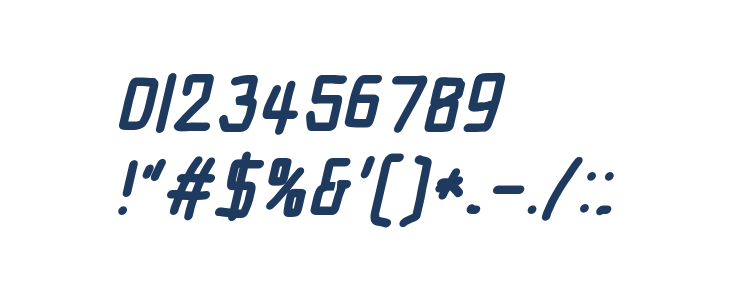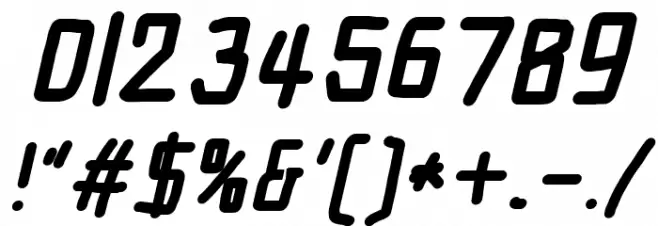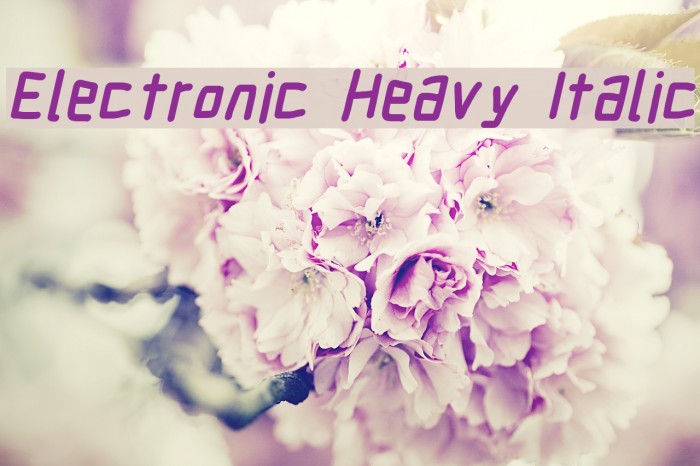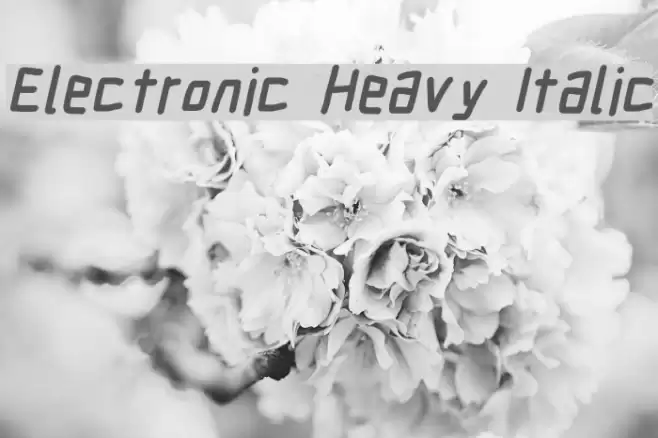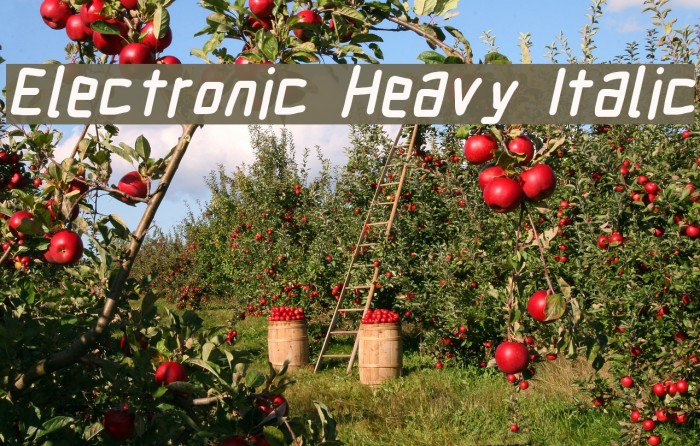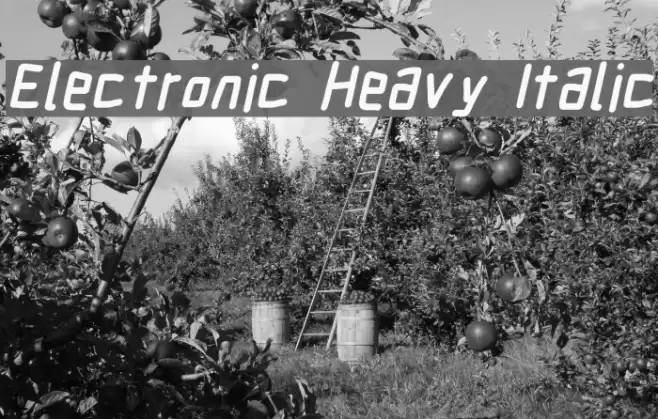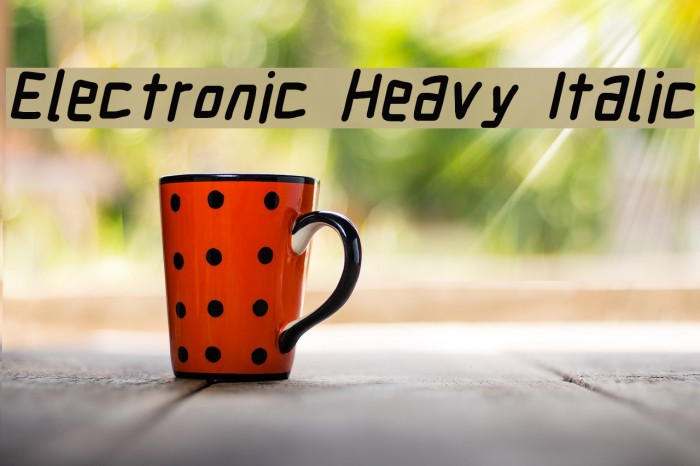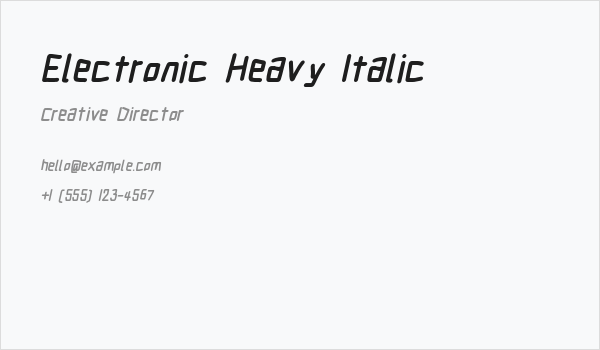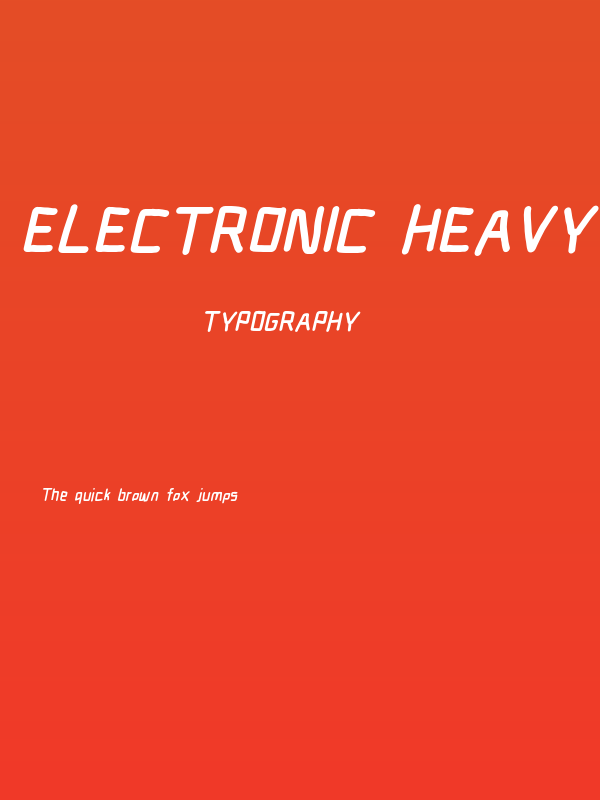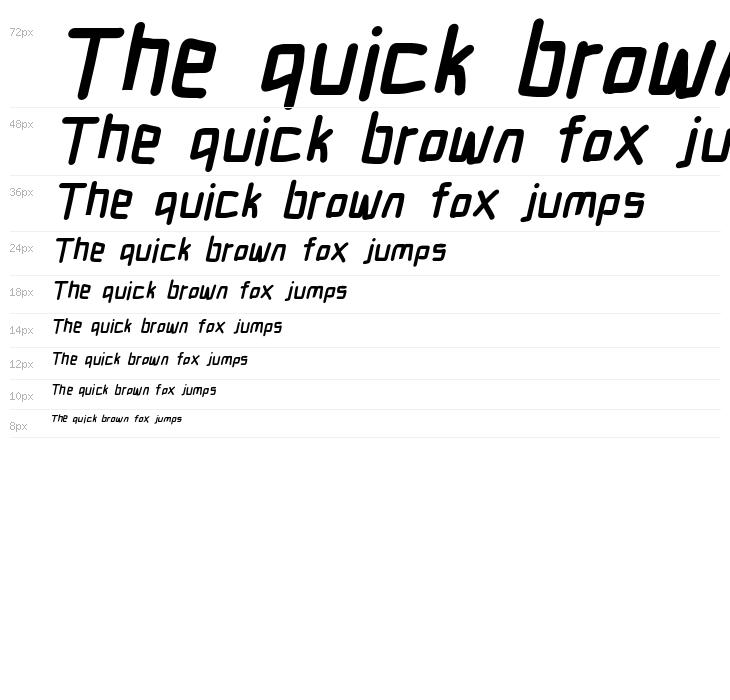
Electronic Heavy Italic Font
Electronic Heavy Italic Description
This font features a bold and dynamic style with a distinctly italicized slant, giving it a sense of motion and energy. The characters are uniformly thick, contributing to a heavy appearance that stands out prominently. The design is modern and somewhat futuristic, with rounded edges that soften the overall look. The uppercase and lowercase letters maintain a consistent style, with the lowercase letters slightly more condensed. Numbers and special characters are designed to match the boldness and slant of the alphabet, ensuring a cohesive appearance across all glyphs. The font's unique style makes it suitable for projects that require a strong visual impact.
| Proposed Projects | Ideal for technology branding, sports team logos, futuristic designs, and dynamic advertising materials. |